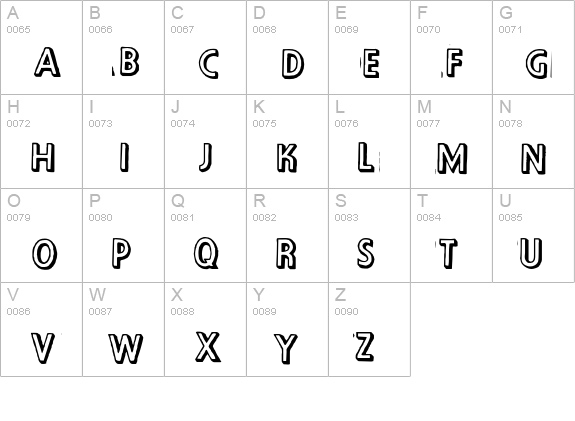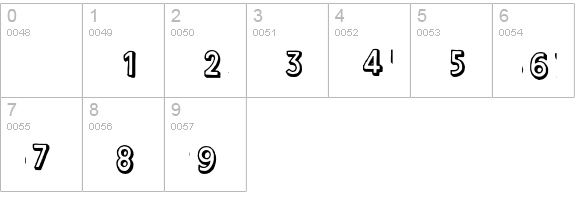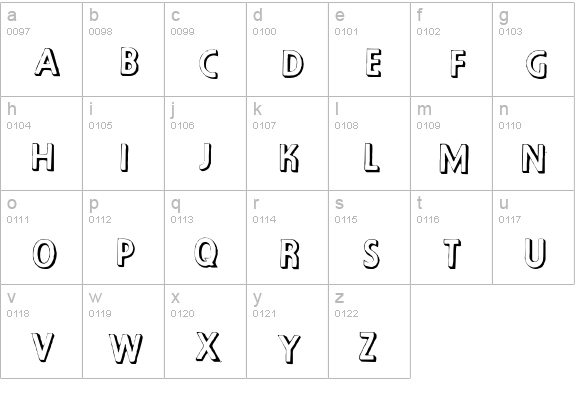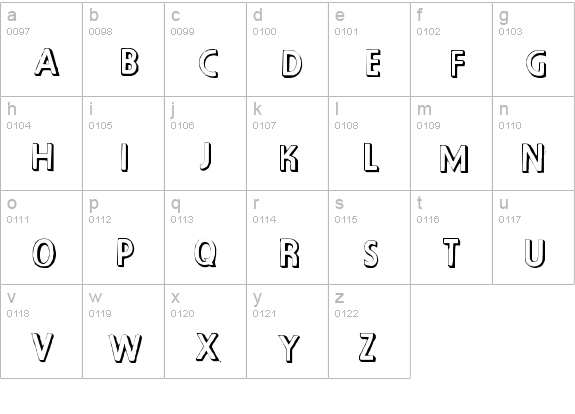
VintageNo1 Font Details
VintageNo1 is a beautifully crafted font that exudes a timeless charm and elegance. With its vintage-inspired design, this font is perfect for projects that require a touch of nostalgia and sophistication. The intricate details and carefully crafted curves of VintageNo1 make it a truly unique typeface that stands out in any setting. Whether you're designing a logo, creating a poster, or working on a branding project, VintageNo1 is sure to elevate your designs to new heights. Its classic yet contemporary feel is versatile and adaptable, making it suitable for a wide range of creative applications. One of the most remarkable aspects of VintageNo1 is that it is available to download for free at FontsMarket.com. This means that you can enjoy the beauty and elegance of this font without having to spend a dime. The fact that it is freely accessible adds to its value and makes it a must-have for any designer or typographer. So, why wait? Visit FontsMarket.com today and download VintageNo1 to add a touch of vintage sophistication to your next project. With its timeless appeal and free availability, this font is sure to become a staple in your font collection.